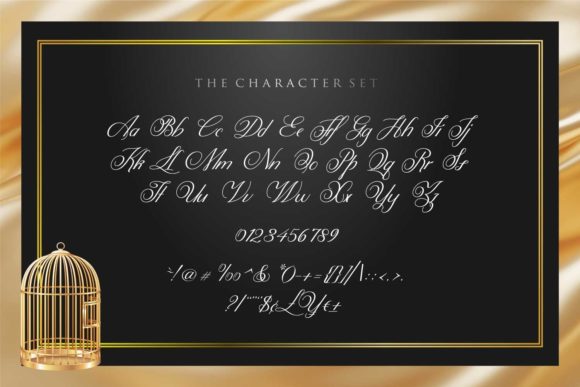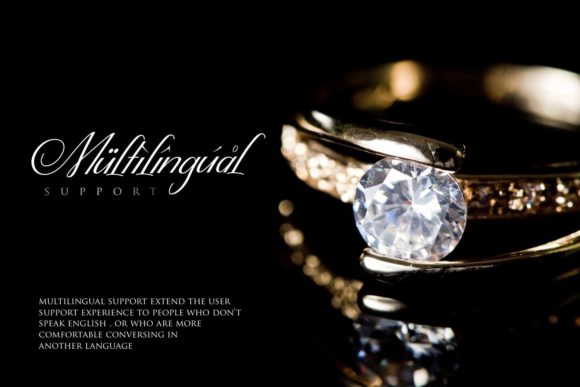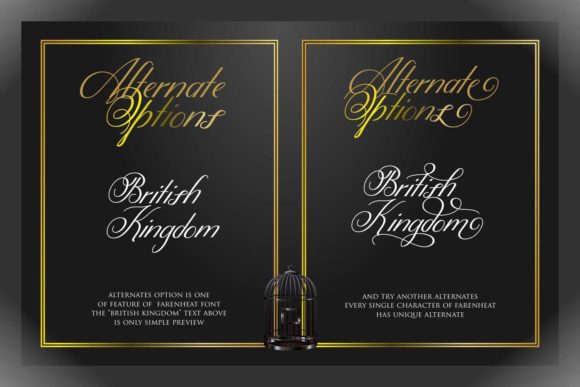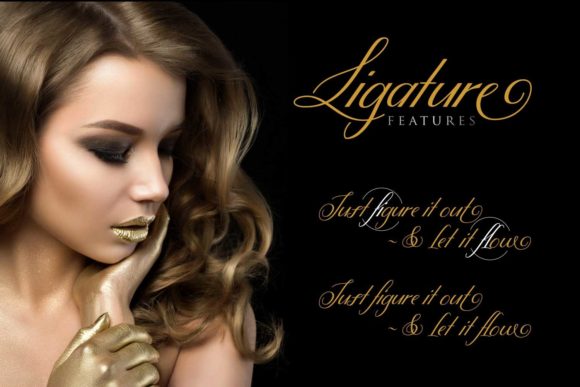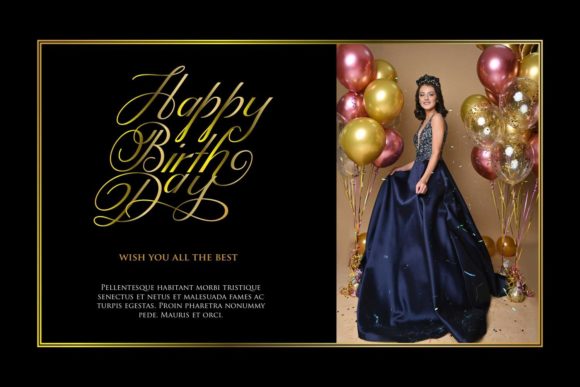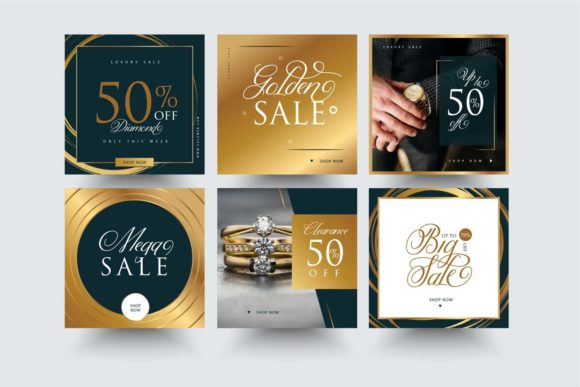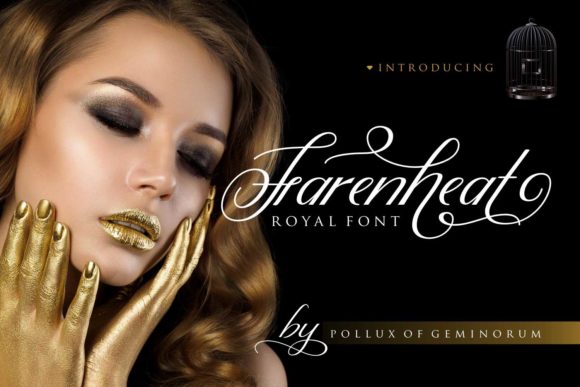
Farenheat Font: Elevate Your Design with Regal Elegance
In the world of typography, fonts play a crucial role in conveying the tone and personality of a design. For designers and crafters seeking to add a touch of luxury and exclusivity to their work, Farenheat Font is an exceptional choice. This royal script font is designed to make your designs stand out, perfect for creating elegant logos, engaging content, stunning wedding invitations, and more.
The Unique Charm of Farenheat Font
Farenheat Font boasts a unique, gorgeous feel that sets it apart from other script fonts. Its elegant and refined appearance is characterized by flowing lines, intricate details, and a sense of sophistication. This font is meticulously crafted to evoke a sense of luxury, making it ideal for designs that require a high-end look and feel.
One of the key benefits of Farenheat Font is its versatility. Whether you’re working on a logo, brochure, social media content, or wedding invitation, this font can be seamlessly integrated to elevate your design. Its adaptability ensures that it can be used across various mediums, from digital platforms to print materials, without losing its charm.
Applications of Farenheat Font
The applications of Farenheat Font are vast and varied. Here are some of the most popular uses:
- Elegant Logos: Create memorable and sophisticated logos that reflect your brand’s luxury and exclusivity.
- Wedding Invitations: Add a touch of romance and elegance to your wedding invitations, making them truly unforgettable.
- Content Creation: Enhance your blog posts, social media content, and articles with a font that exudes sophistication and refinement.
- Marketing Materials: Elevate your brochures, flyers, and business cards with a font that commands attention and respect.
Why Choose Farenheat Font?
With so many fonts available, why choose Farenheat Font? Here are a few compelling reasons:
- Unique Design: Farenheat Font offers a distinctive design that will set your work apart from others.
- Ease of Use: This font is easy to read and works well in various sizes, making it perfect for both digital and print applications.
- Customization: Farenheat Font can be easily customized to fit your brand’s style, ensuring consistency across all your designs.
Tips for Using Farenheat Font Effectively
To get the most out of Farenheat Font, consider the following tips:
- Pair with Complementary Fonts: Combine Farenheat Font with simpler fonts to create a balanced and harmonious design.
- Use it Sparingly: While Farenheat Font is elegant, using it sparingly will ensure it remains impactful.
- Experiment with Colors: Don’t be afraid to experiment with different colors to find the perfect match for your design.
Farenheat Font is a royal script font that can transform your designs, adding a layer of luxury and exclusivity. Its unique feel, versatility, and wide range of applications make it an excellent choice for designers and crafters looking to create elegant and sophisticated work. By incorporating Farenheat Font into your design arsenal, you’ll be able to create stunning logos, captivating content, beautiful wedding invitations, and more that leave a lasting impression.
Whether you’re a seasoned designer or a crafting enthusiast, Farenheat Font is sure to become a favorite in your collection. So why wait? Explore the possibilities of Farenheat Font today and elevate your designs to new heights of elegance and sophistication.